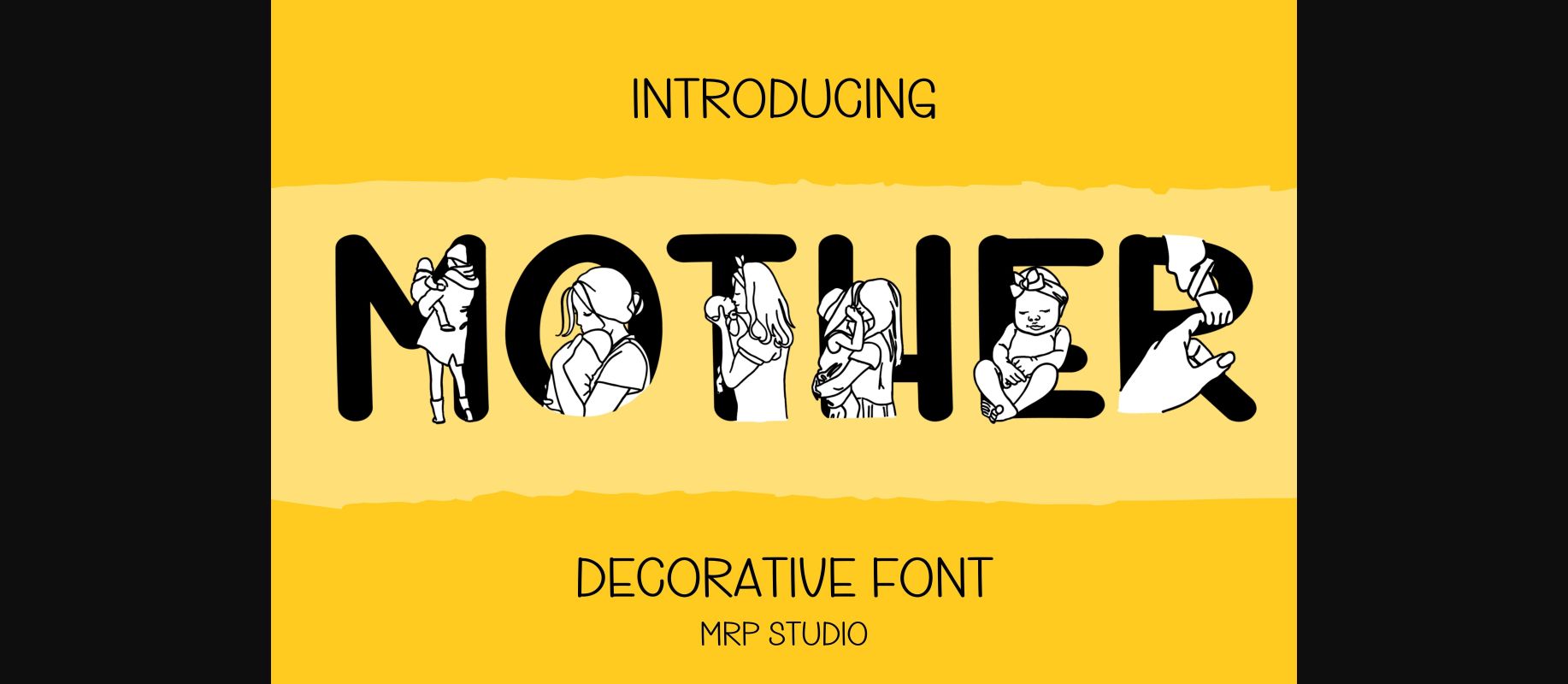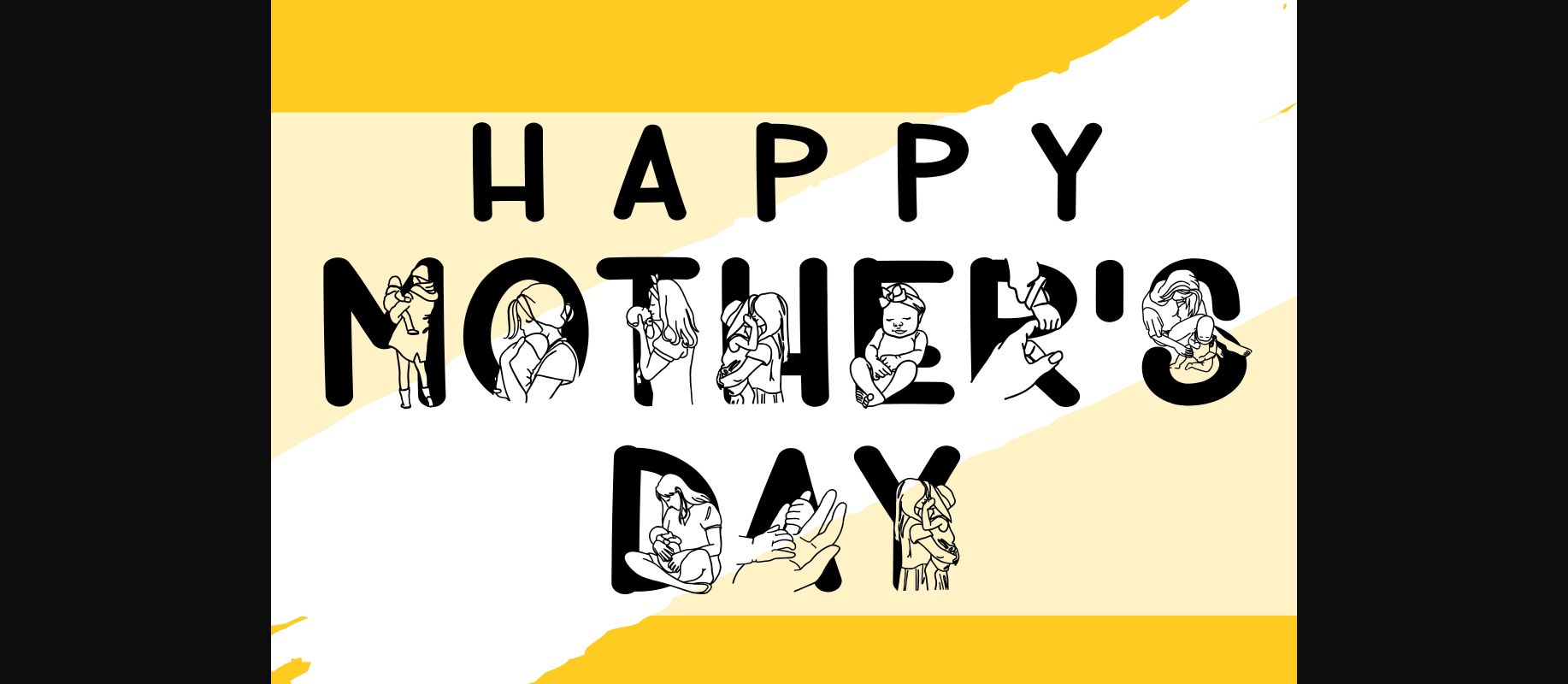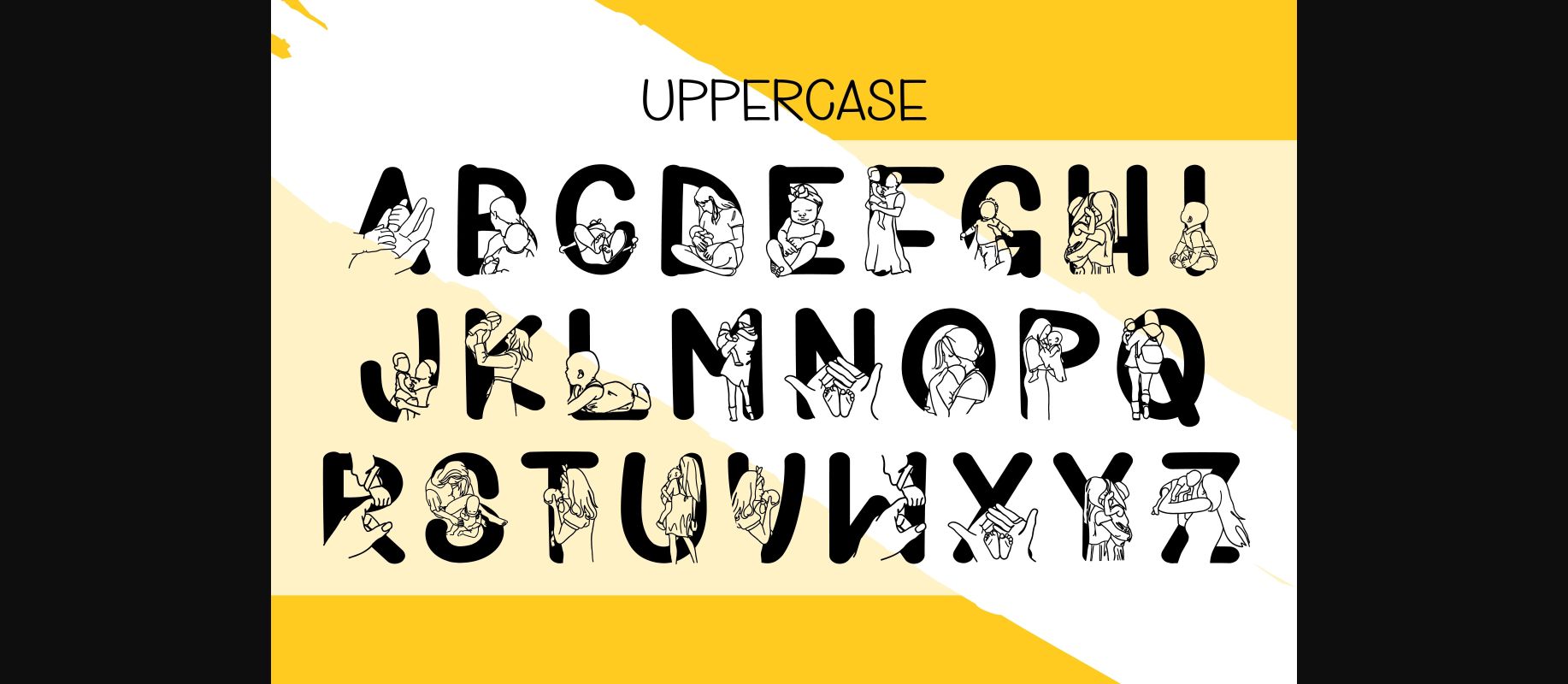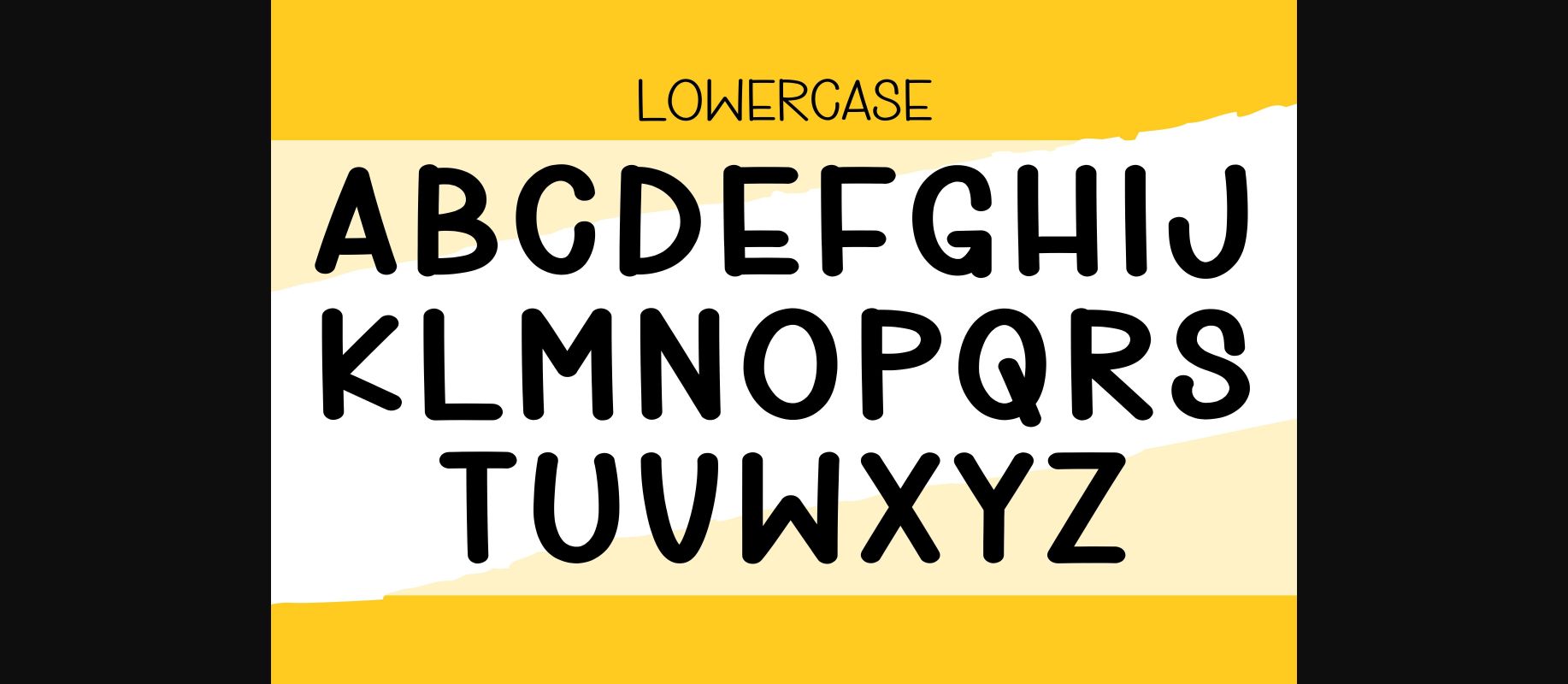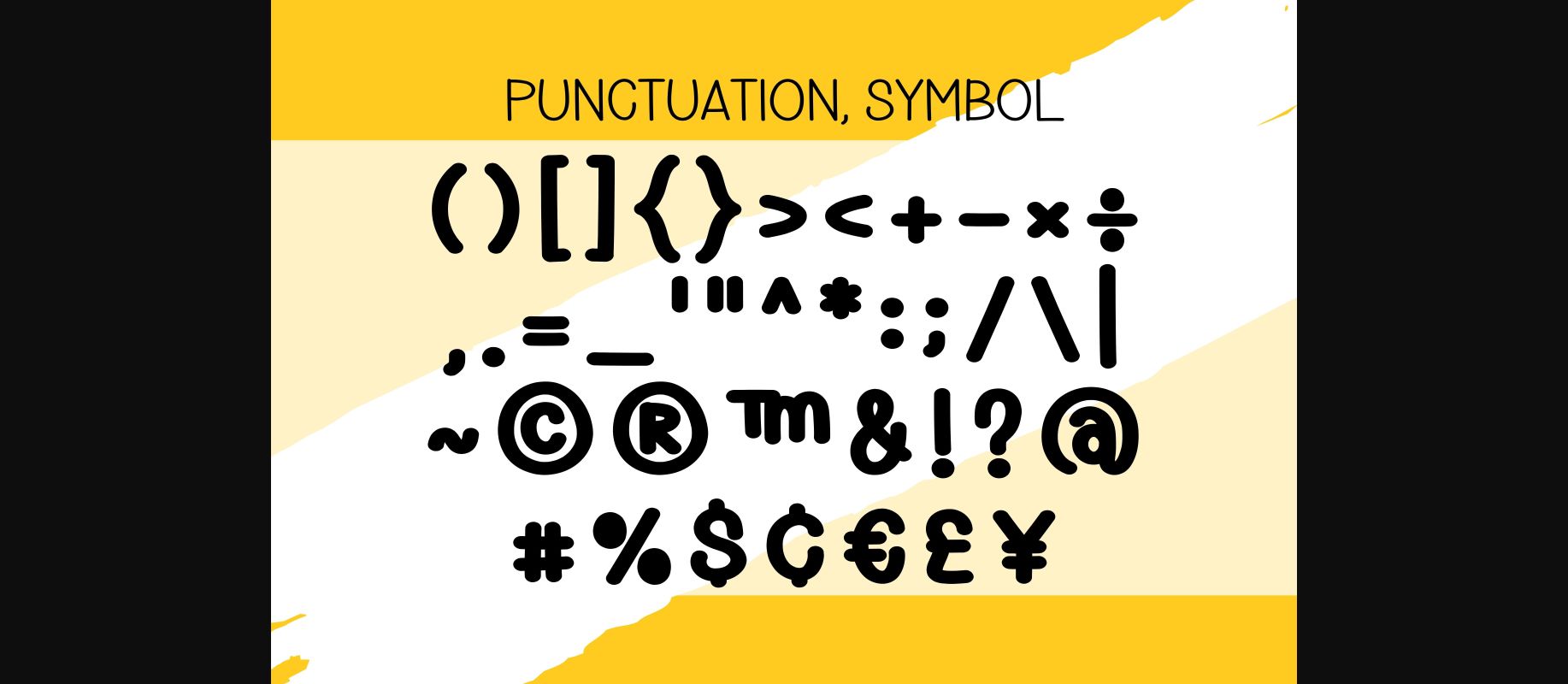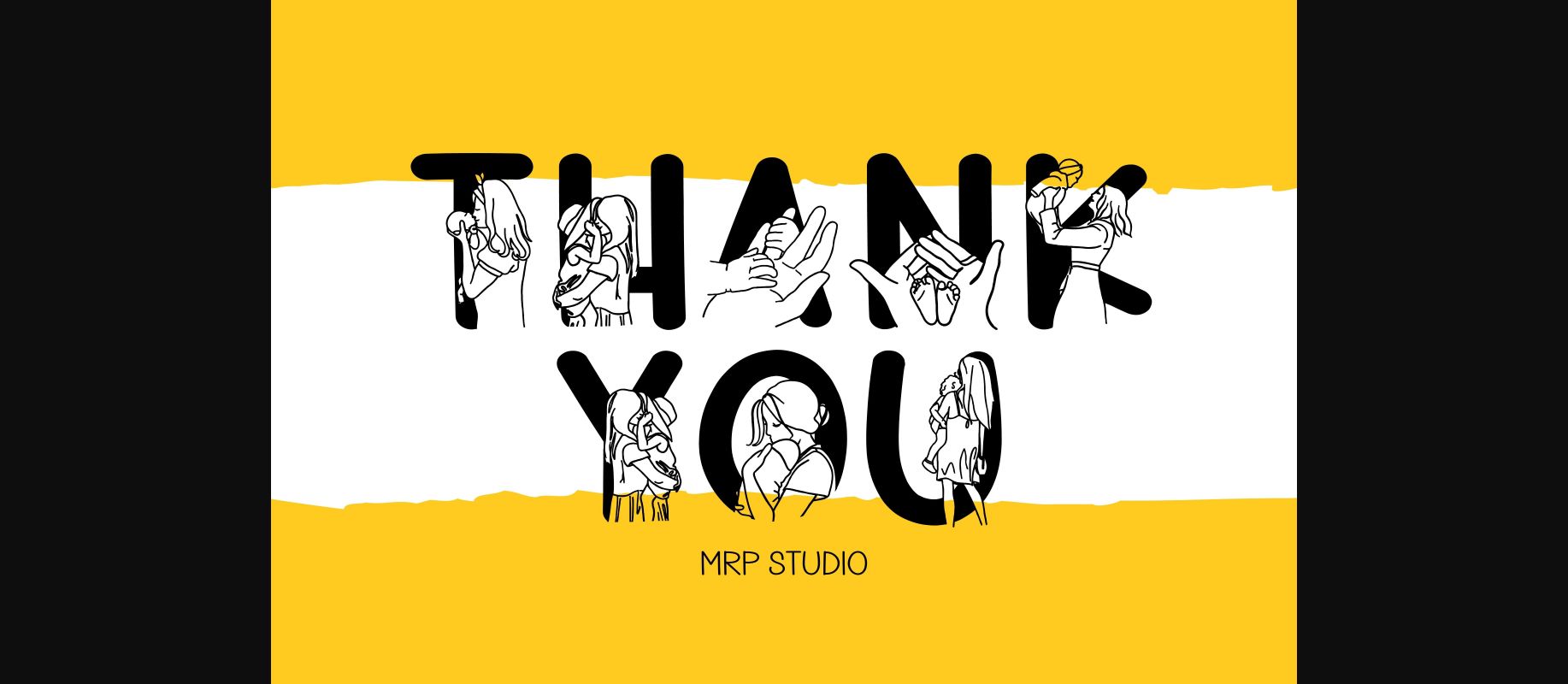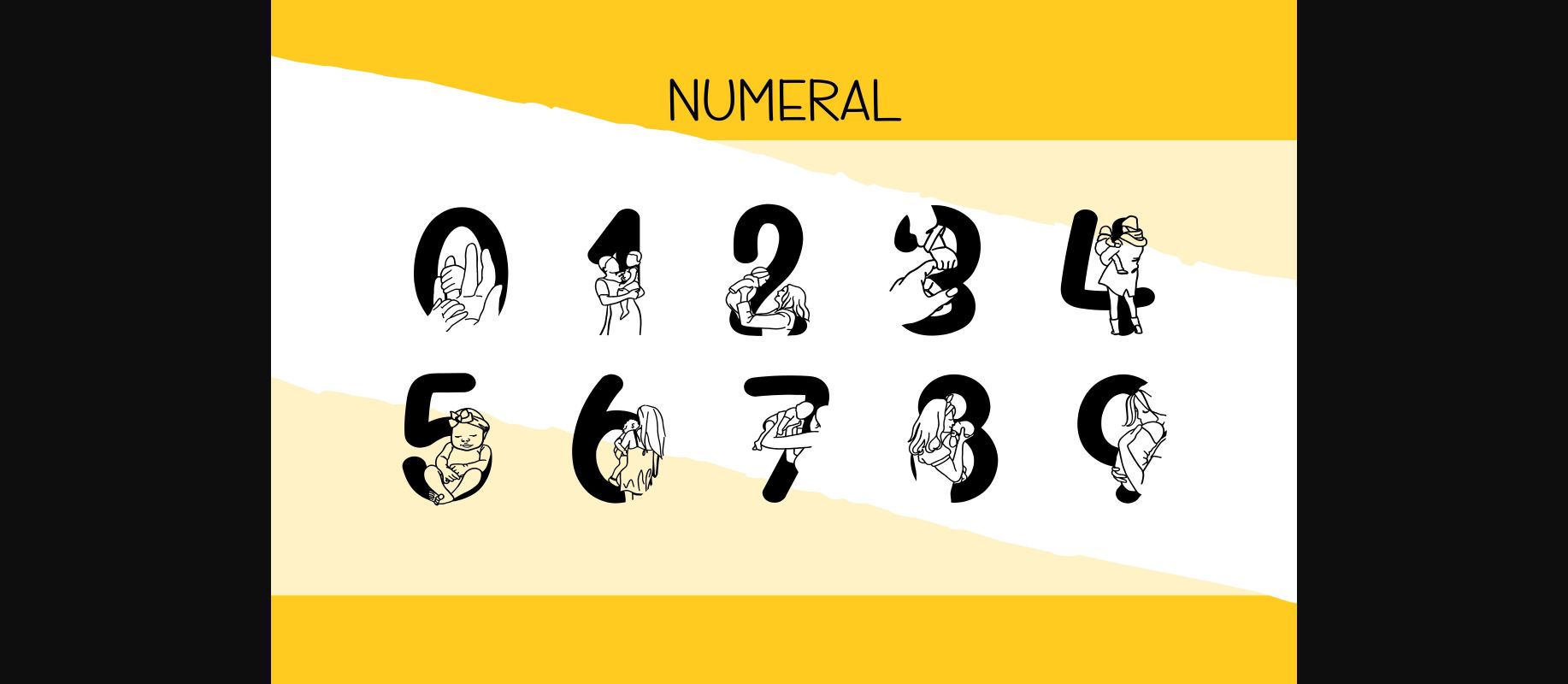
Mother is a cute and friendly decorative font. Masterfully designed to become a true favorite, this font has the potential to bring each of your creative ideas to the highest level!